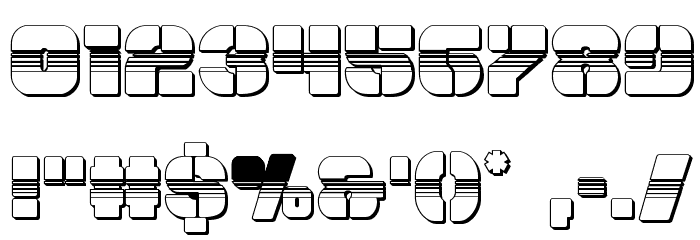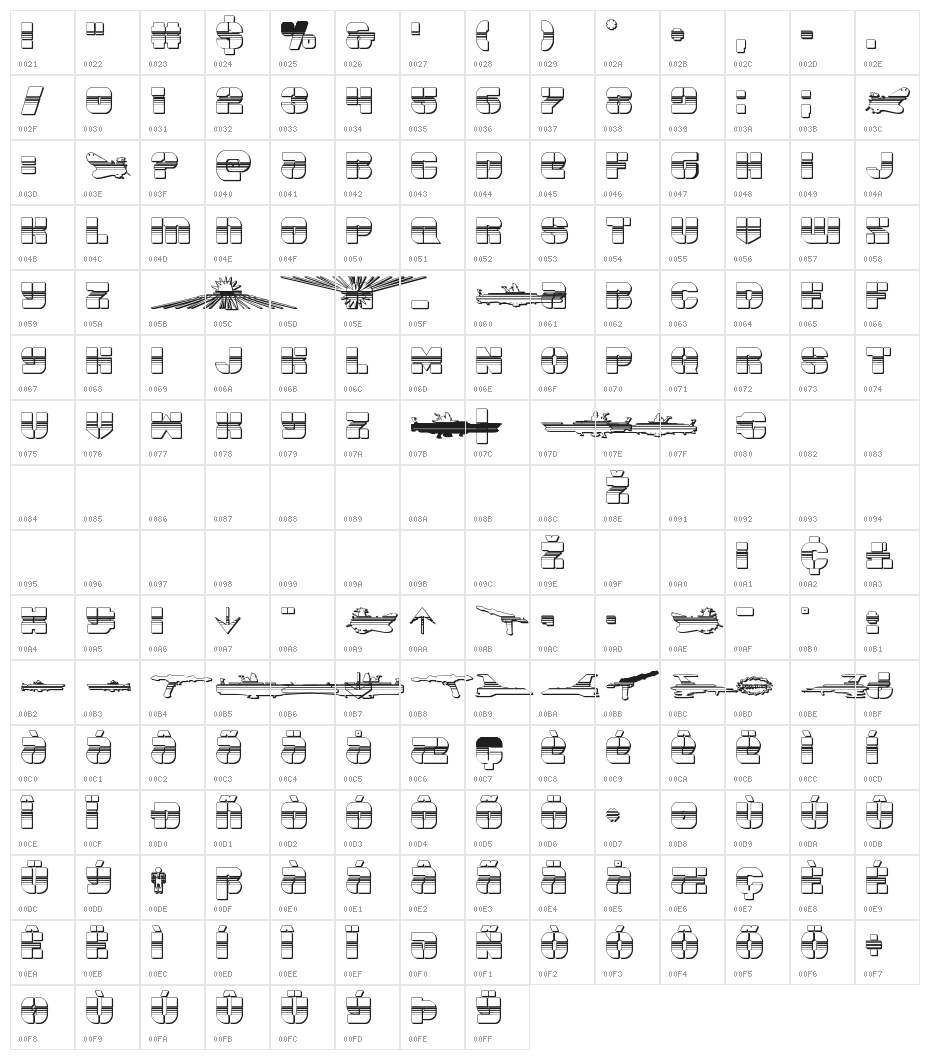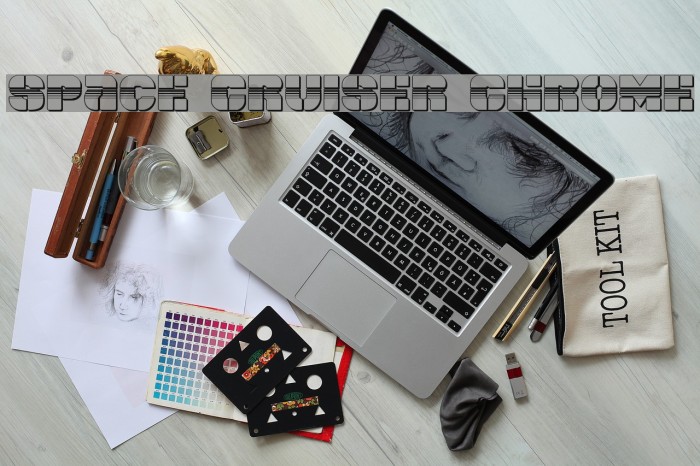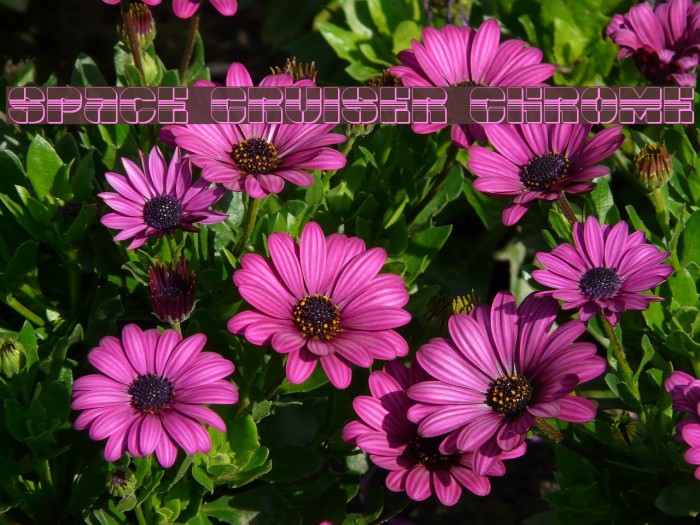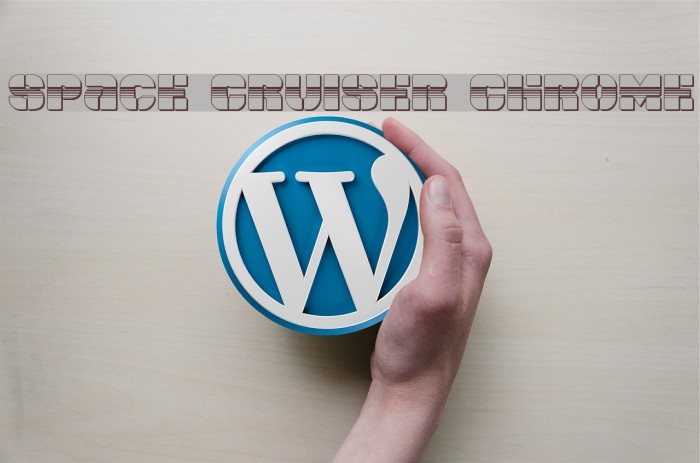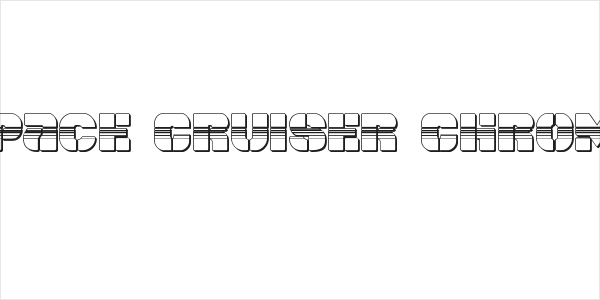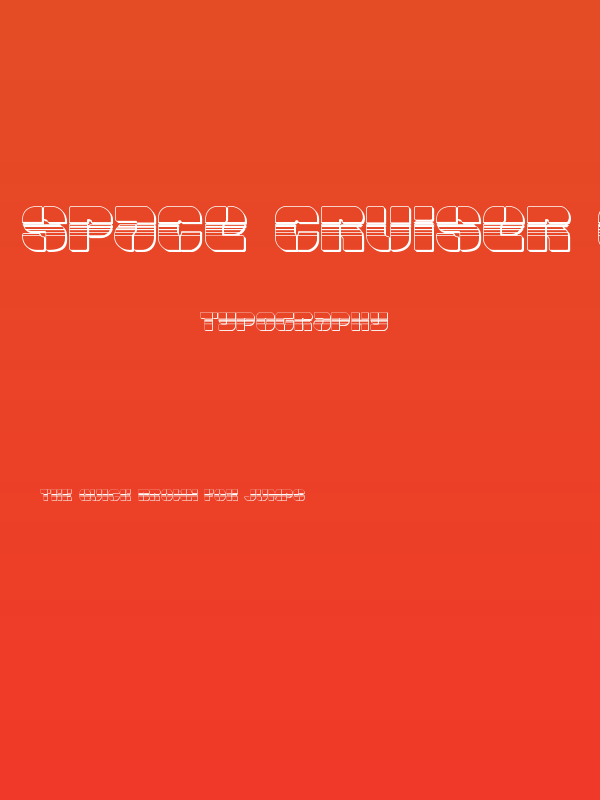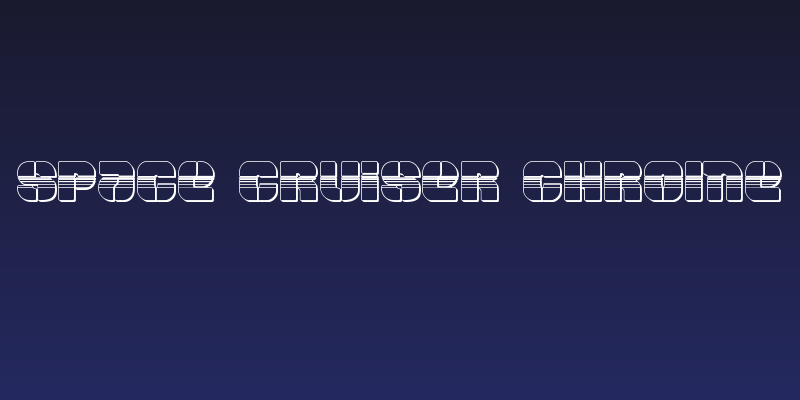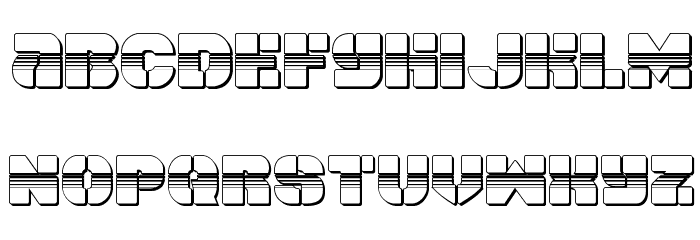
Space Cruiser Chrome Font
Space Cruiser Chrome Description
This font features a futuristic and bold design with a chrome-like appearance. The characters are constructed with thick, geometric lines and incorporate horizontal stripes that give a sense of movement and speed. The uppercase and lowercase letters share a consistent style, emphasizing a strong, industrial aesthetic. Numbers and special characters are equally bold, maintaining the overall theme. The font's unique design makes it stand out, suitable for projects that require a modern and dynamic look.
| Proposed Projects | Ideal for sci-fi themed posters, video game titles, futuristic branding, and technology-related advertisements. |